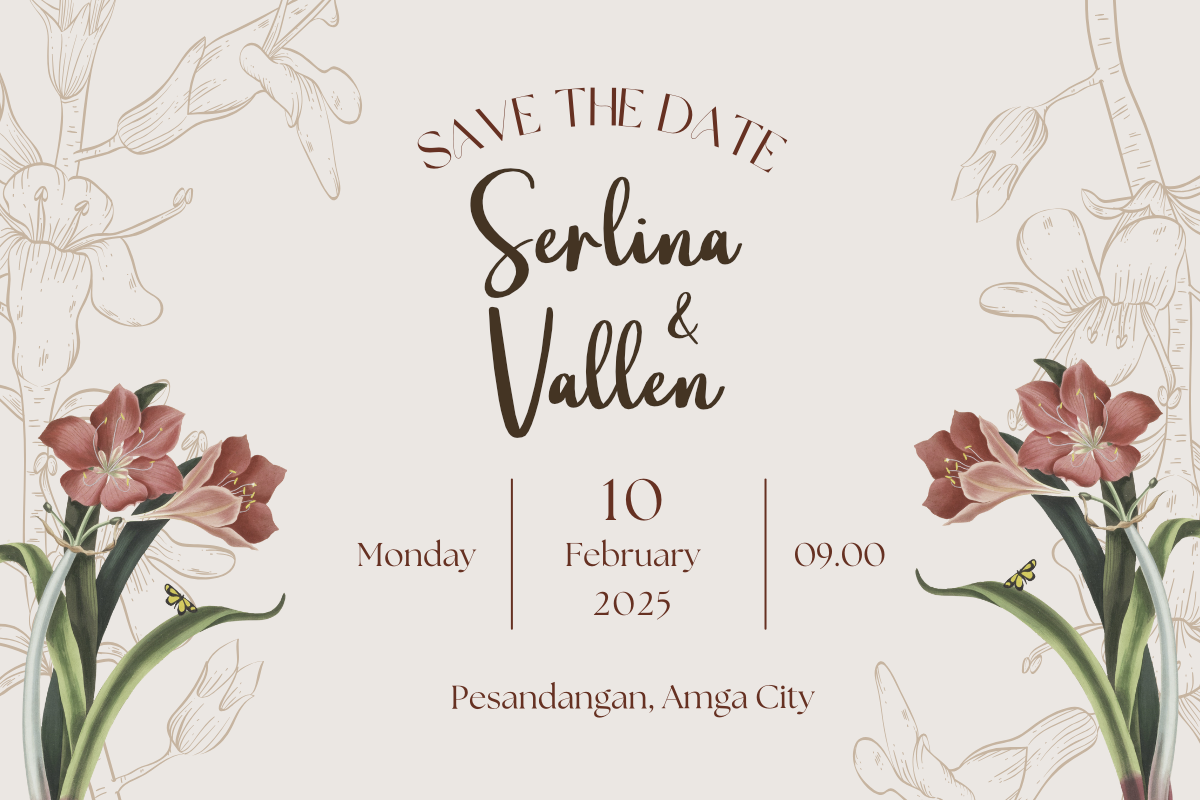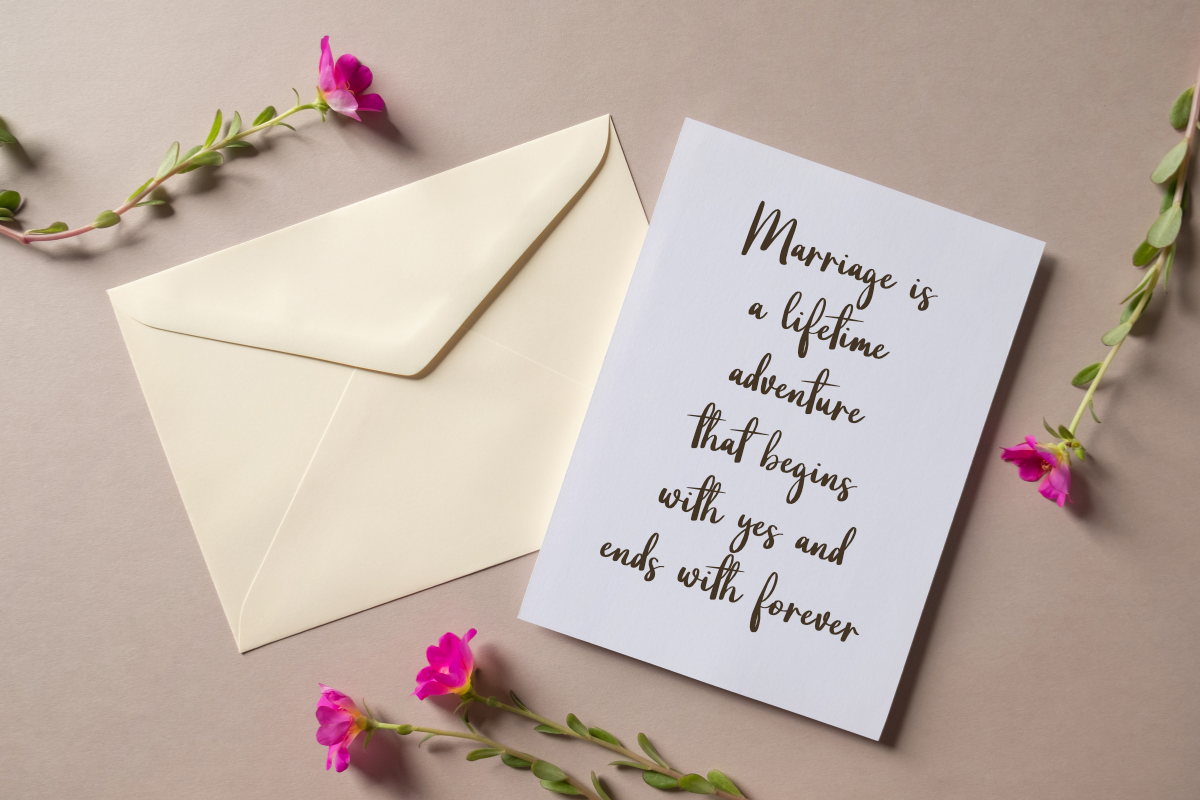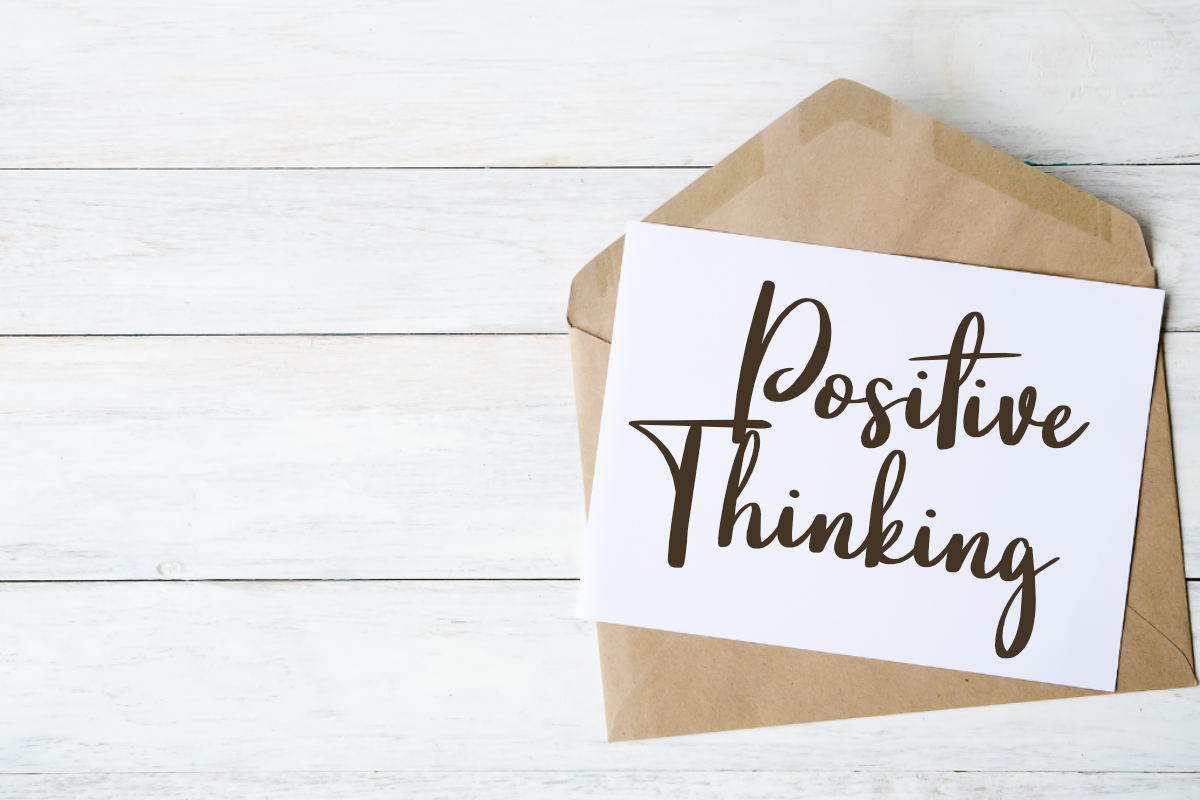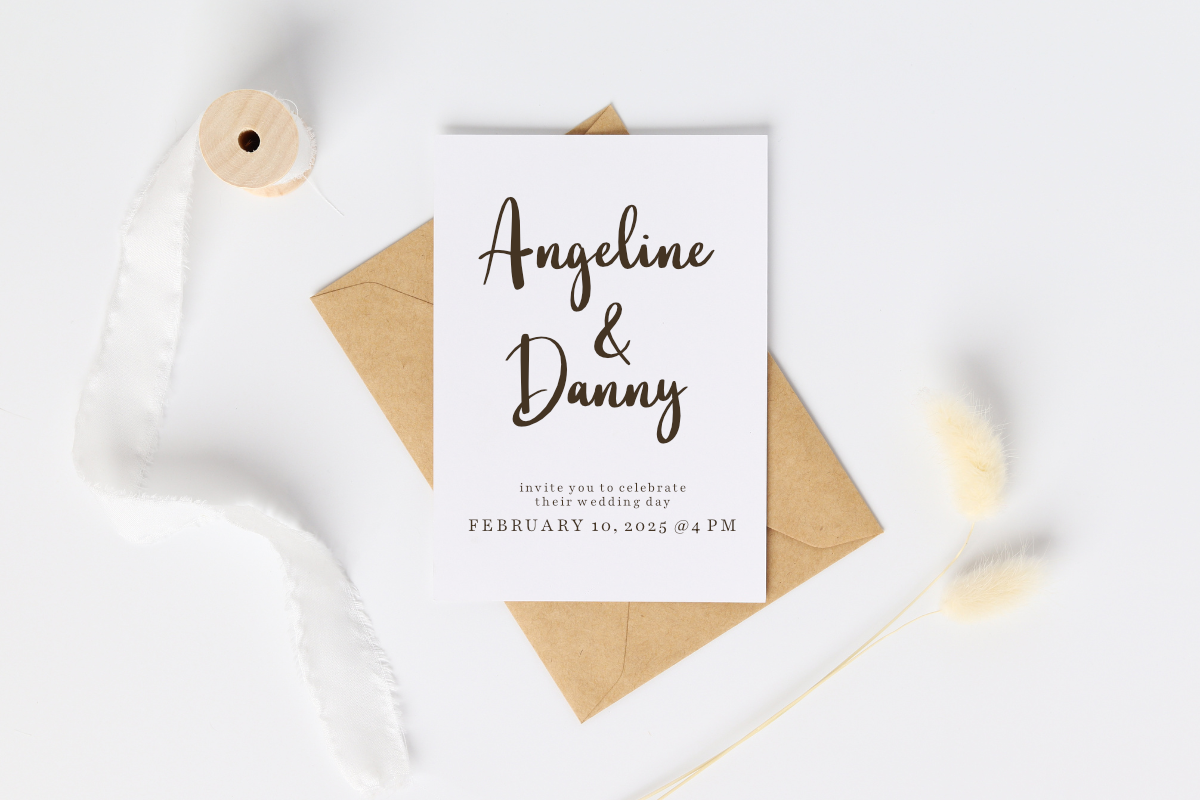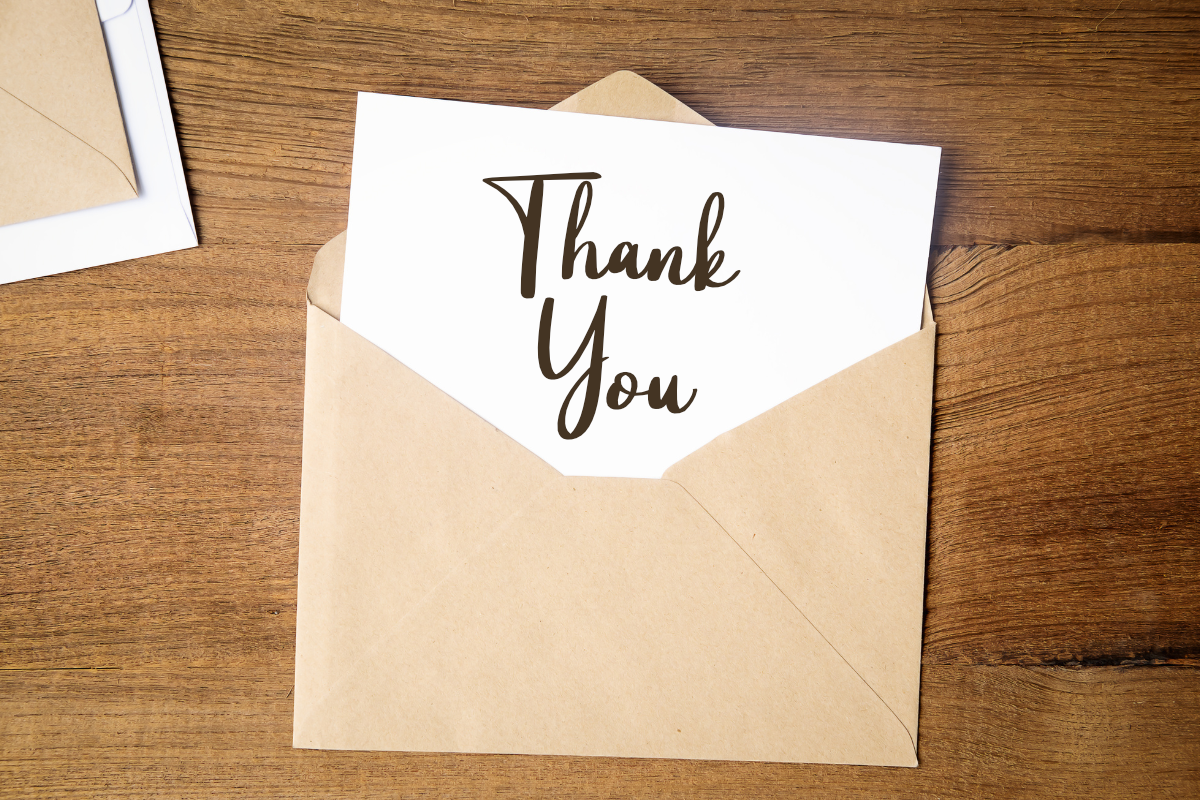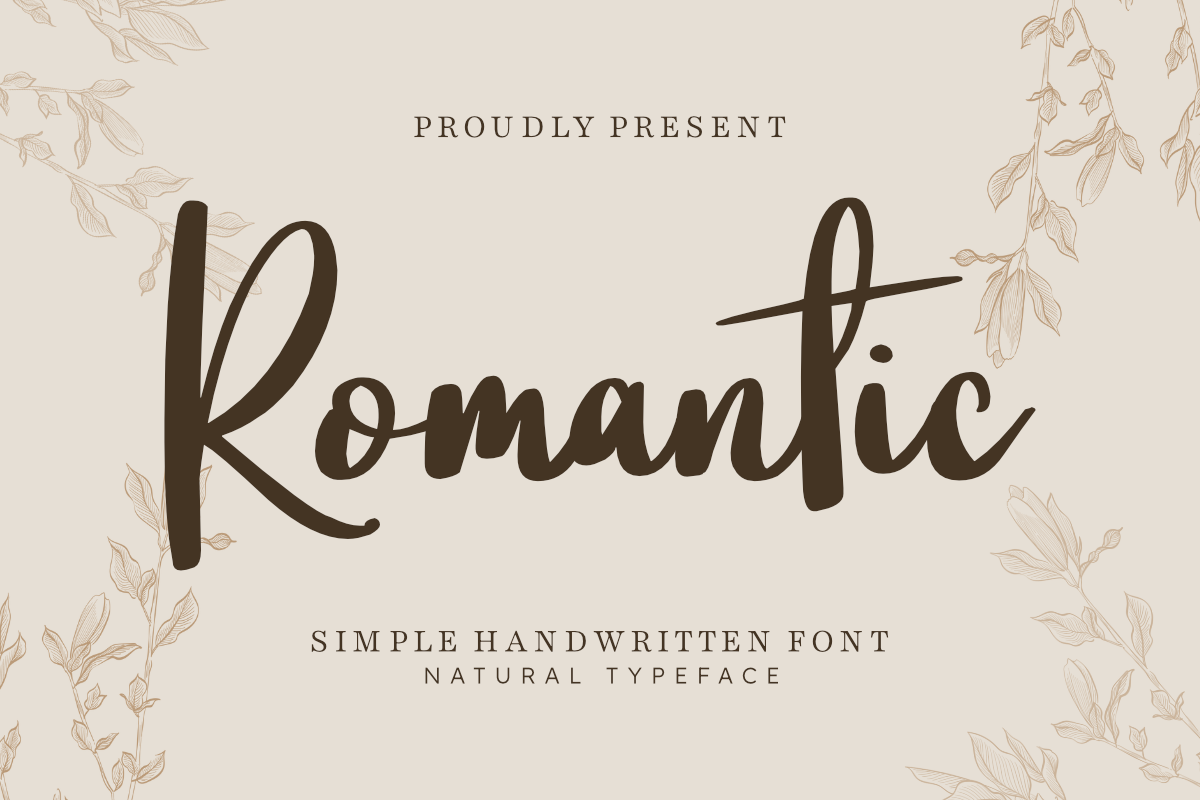
Romantic - Beauty Handwritten Font
Romantic is an elegant and modern script font with smooth and luxurious strokes. Perfect for wedding invitations, branding, logos, quotes, greeting cards and signature styles. With a feminine and stylish look, this font will give an exclusive touch to your designs!